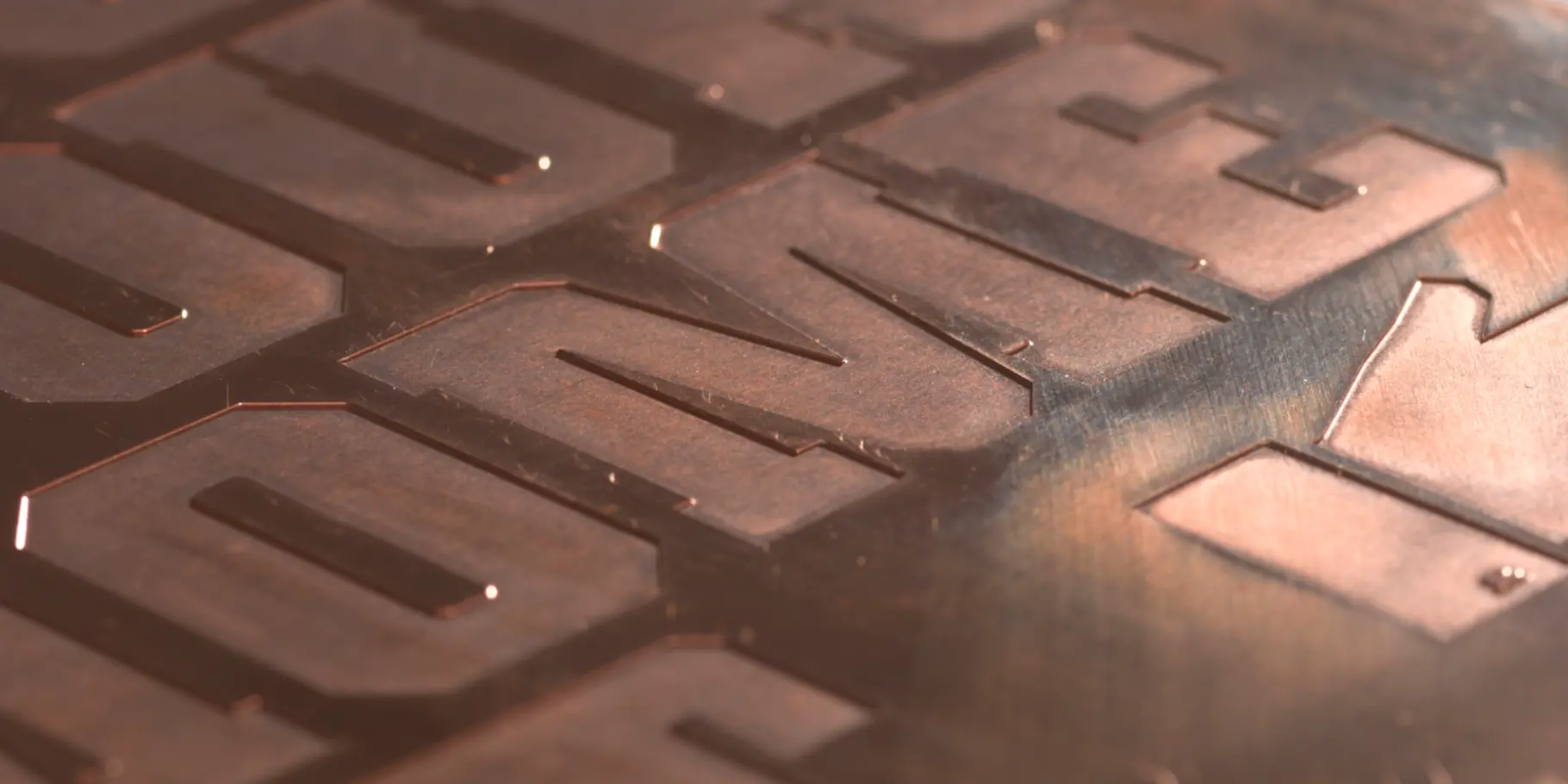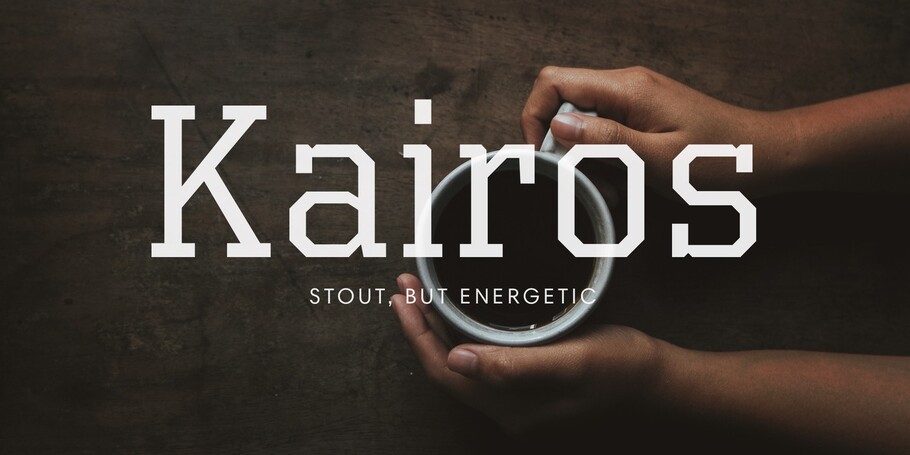
Kairos®
Choose your moment.
A contemporary take on 19th century American wood type faces that replaced curves with bevelled corners, Kairos spans the full palette of weights and widths, all with italics and small caps. Monotype Studio’s Terrance Weinzierl has made it many things: stocky and uncompromising in some weights; agile and good-natured in others. Ideal for big-talking headlines and subheads, branding and packaging, it’s also a candidate for text, with a range of readable middle weights. And, because it’s so square, it feels at home in the pixel grid and digital settings.
Kairos is equal parts traditional and digital. Inspired by 19th century wood type fonts called Grecians, it’s an octagonal slab serif at its core. The serif detailing makes it radiate in headlines, with the square serifs driving its performance in text. The 51 weights and widths—all with small caps—offer a flexible and usable contemporary palette of styles perfect for branding, advertising and packaging.
Kairos is stout, but has energy. It often looks athletic, industrial, and stern, while the subtle rounded features can also give it a gentlemanly and gracious demeanor.
As a Senior Type Designer in the Monotype Studio, Terrance Weinzierl has been creating and modifying typefaces for the Monotype Library and a wide range of brands since 2008. In addition to working on custom projects for Microsoft, Google, Barnes & Noble, Domino’s and SAP, he’s designed type for video games, professional sports teams and auto manufacturers.